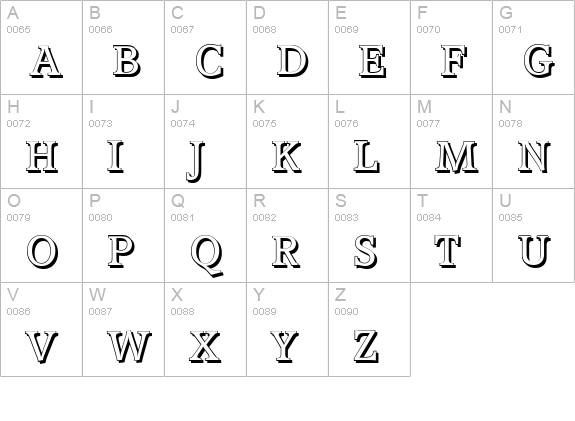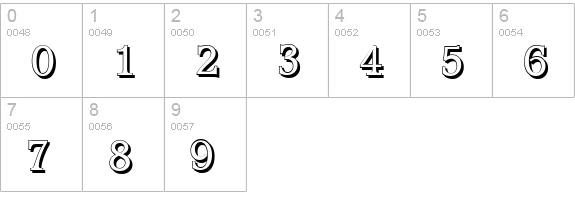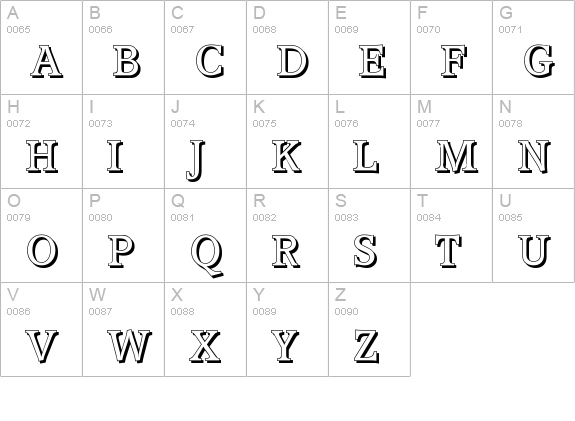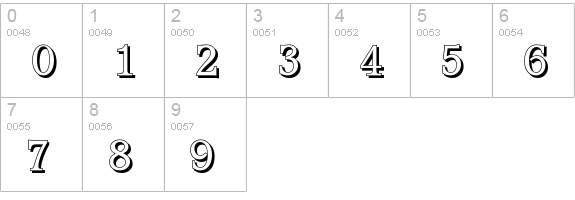
AccoladeShadow-Regular Font Details
AccoladeShadow-Regular is the standard, neutral variant in the AccoladeShadow typeface family \xE2\x80\x94 well suited to general body text, paragraphs, and standard typographic work.
AccoladeShadow-Regular is a beautifully crafted display font that exudes elegance and sophistication. With its unique shadow effect, this font adds a touch of depth and dimension to any design project. Its clean lines and smooth curves make it a versatile choice for a wide range of applications, from titles and headlines to invitations and branding materials. What makes AccoladeShadow-Regular even more appealing is that it is available for free download at FontsMarket.com. This means that you can easily access this stunning font and elevate your designs without any cost. Whether you're a graphic designer, a blogger, or a business owner looking to enhance your visual identity, AccoladeShadow-Regular is a fantastic choice that combines style and accessibility. Download it today and see the magic it brings to your creative projects!